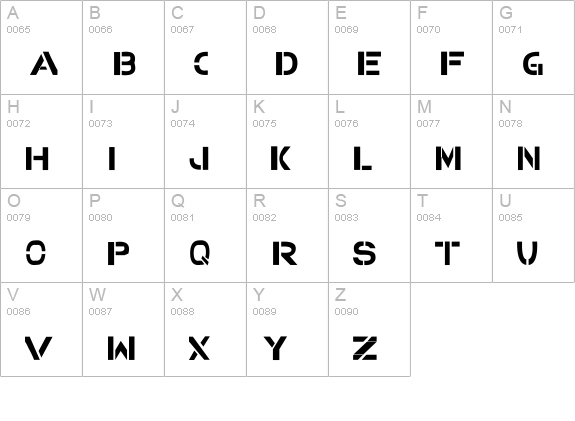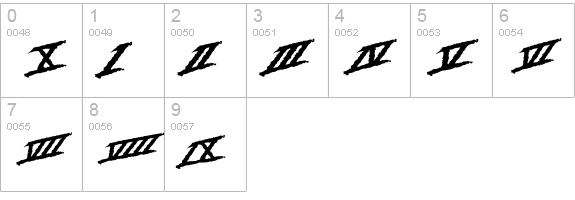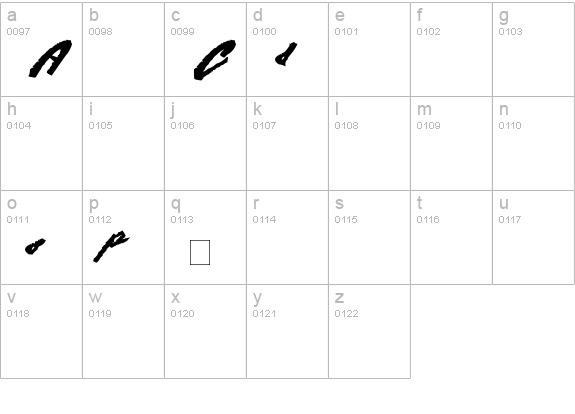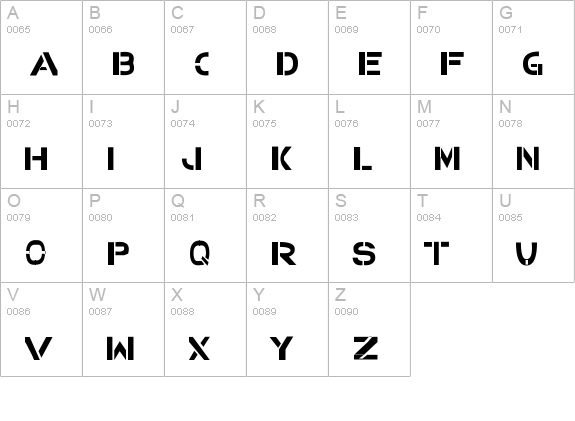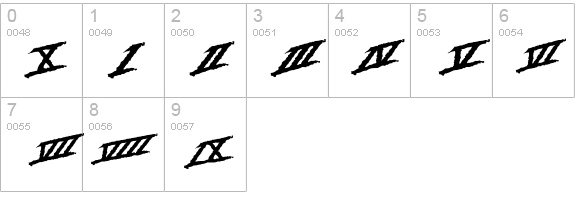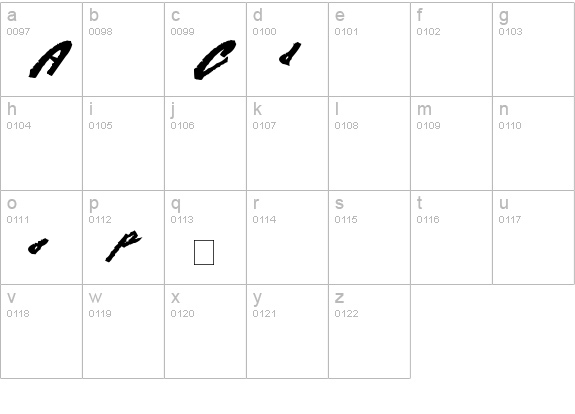
Beverly Hills Cop Font Details
Introducing Beverly Hills Cop font, a stylish and sophisticated typeface that captures the essence of the iconic 80s action-comedy film series. With its bold and dynamic letterforms, this font is perfect for adding a touch of nostalgia to your designs. Beverly Hills Cop font is carefully crafted to exude the sleek and glamorous atmosphere of its namesake. Its sharp edges and contemporary curves create a sense of elegance and confidence that will make your projects stand out from the crowd. Not only does Beverly Hills Cop font possess an undeniable charm, but it also offers versatility in its application. Whether you're designing a movie poster, creating a logo for a fashion brand, or adding a retro touch to your website, this font is sure to make a bold statement. And the best part? Beverly Hills Cop font is available for free download at FontsMarket.com. Yes, you read that right – this exceptional typeface can be yours without spending a dime. So why wait? Grab this font and unleash your creativity today. Don't miss out on the opportunity to bring the glitz and glam of Beverly Hills into your designs. Download Beverly Hills Cop font for free now, exclusively at FontsMarket.com.